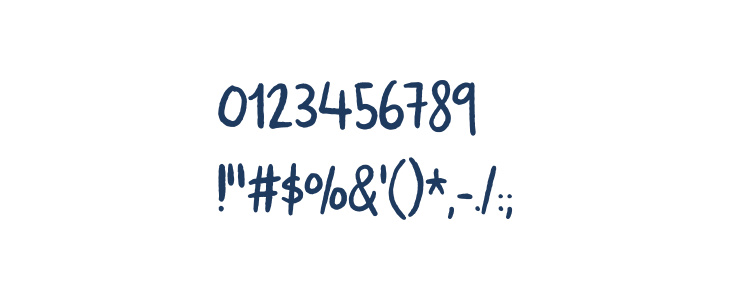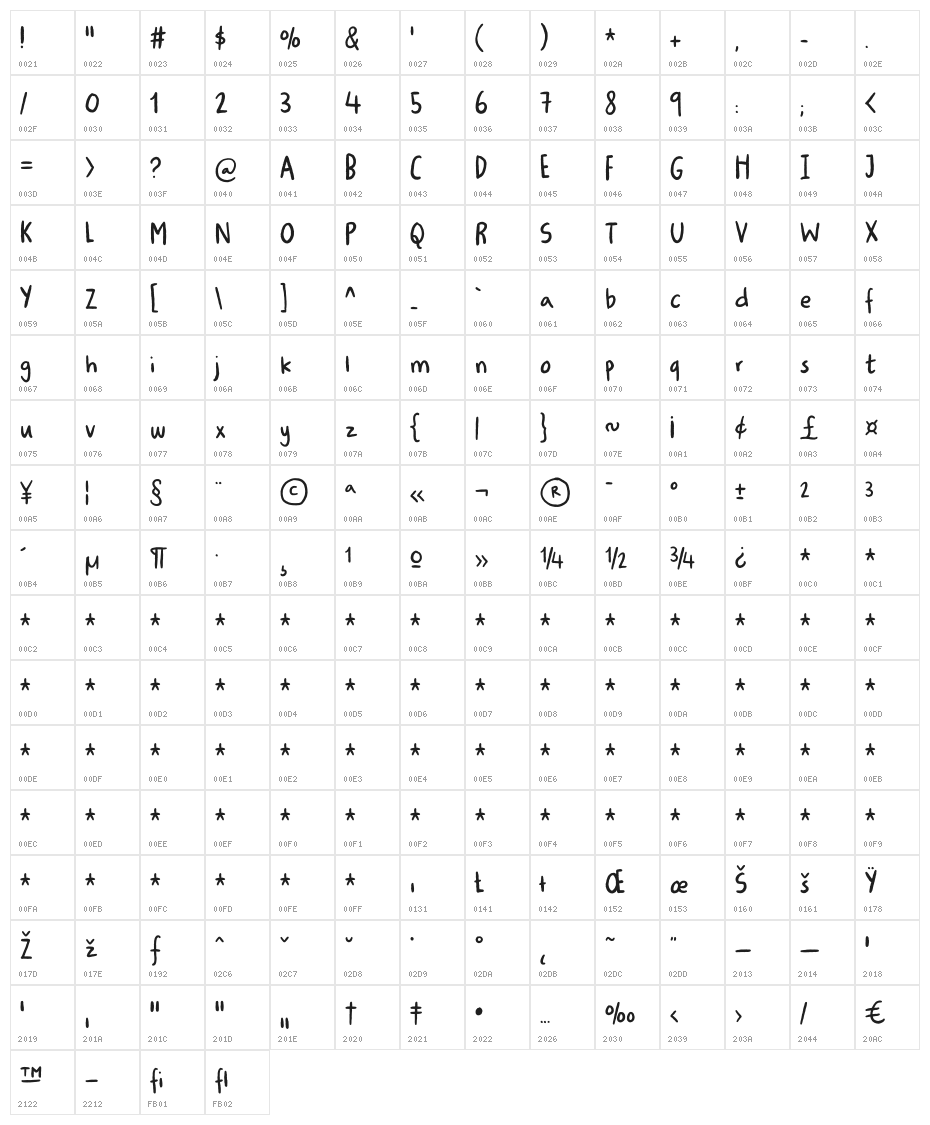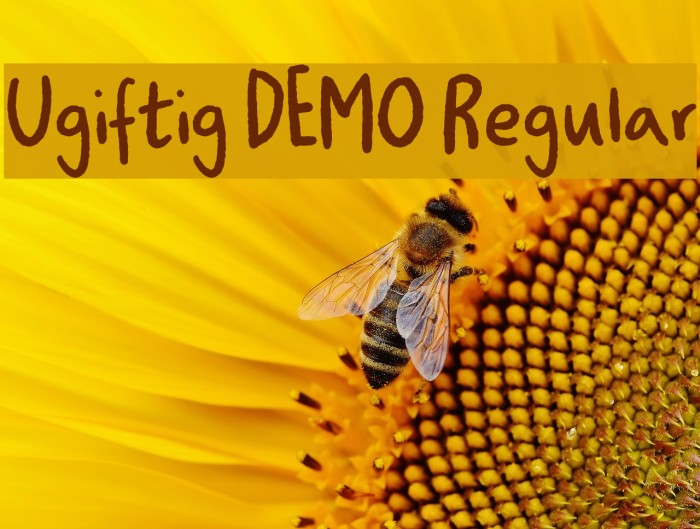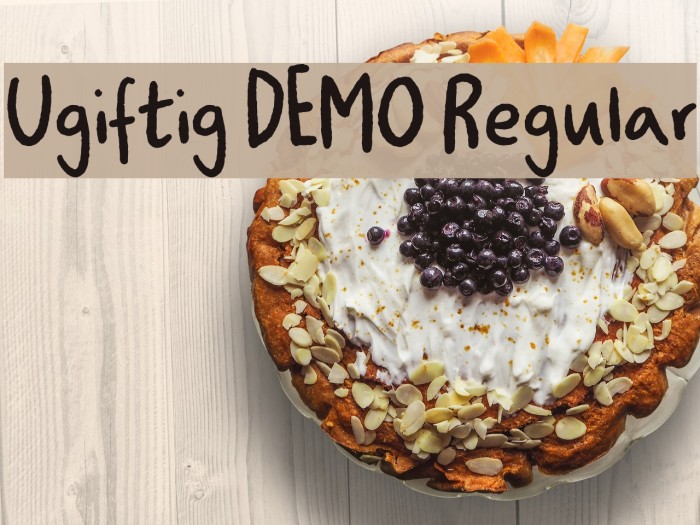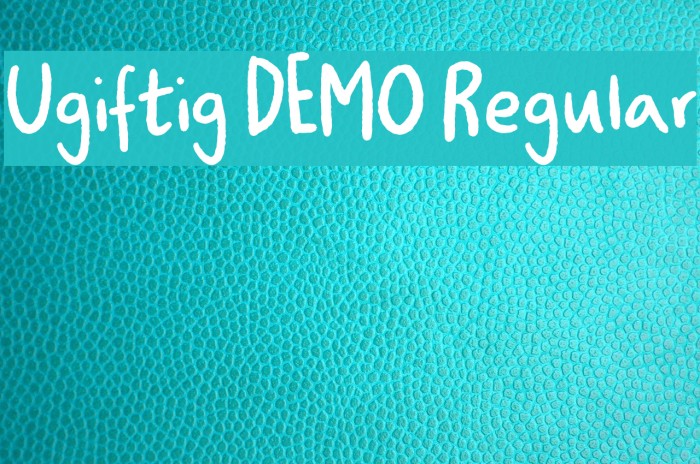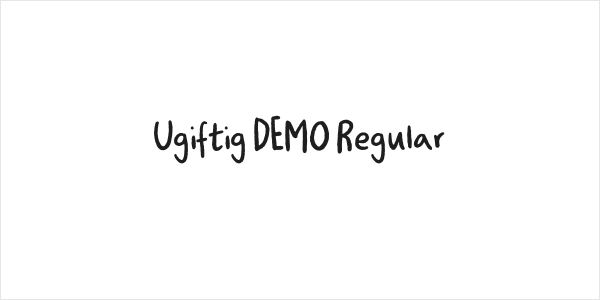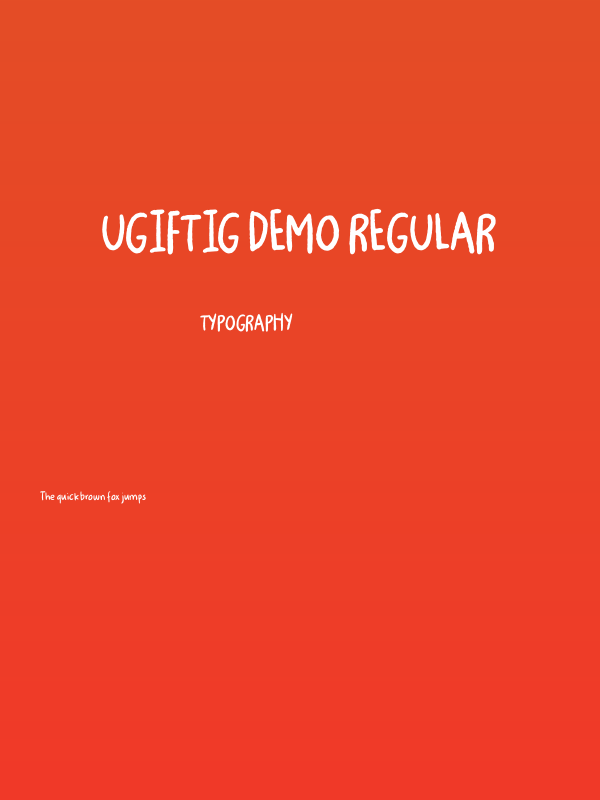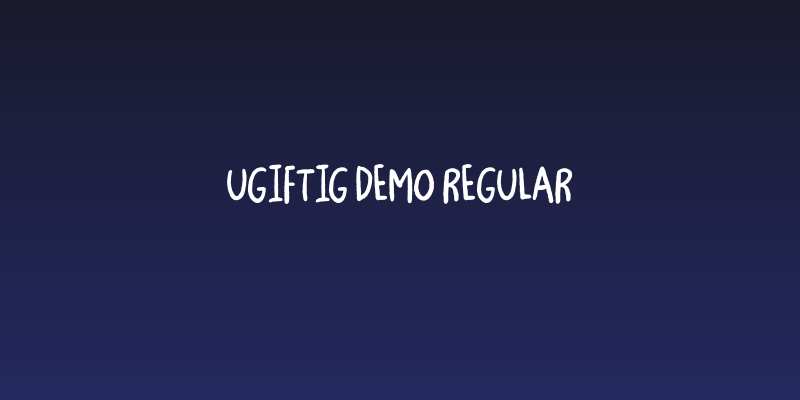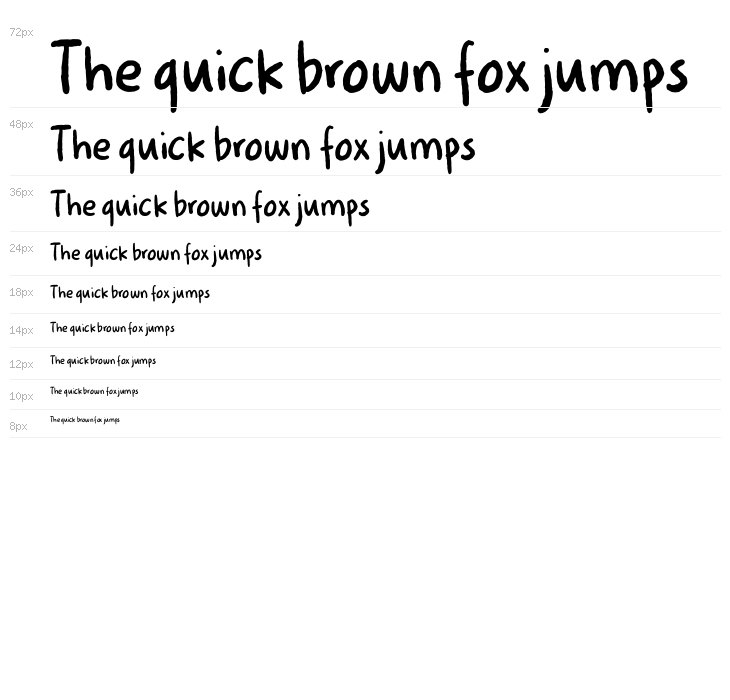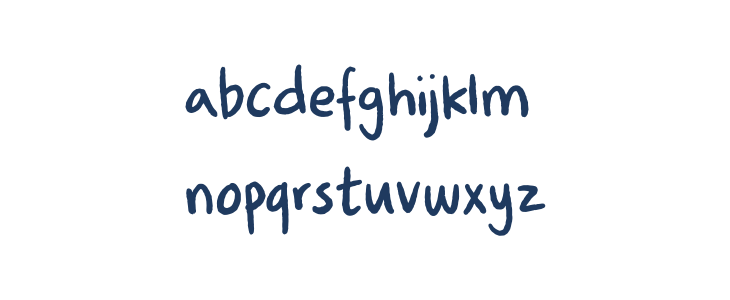
Ugiftig DEMO Regular Font
Ugiftig DEMO Regular Description
This font features a playful and handwritten style, characterized by its irregular strokes and casual appearance. The letters have a slightly uneven baseline, adding to the informal and friendly feel. The uppercase and lowercase letters are well-balanced, maintaining a consistent flow throughout. The numerals and special characters are designed to match the overall aesthetic, with a similar hand-drawn quality. The font's organic look makes it suitable for projects that require a personal touch or a relaxed vibe.
| Use Case | Logos, Headlines, Informal Text |
| Proposed Projects | Ideal for greeting cards, children's books, casual branding, and social media graphics. |